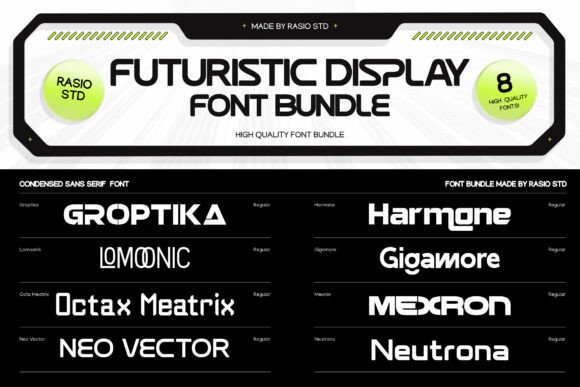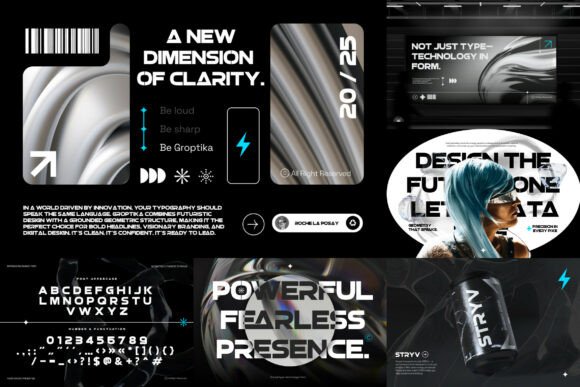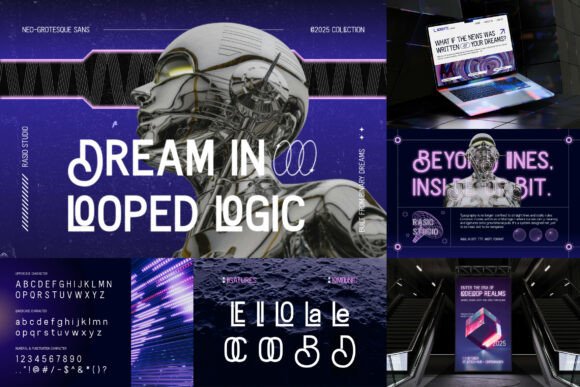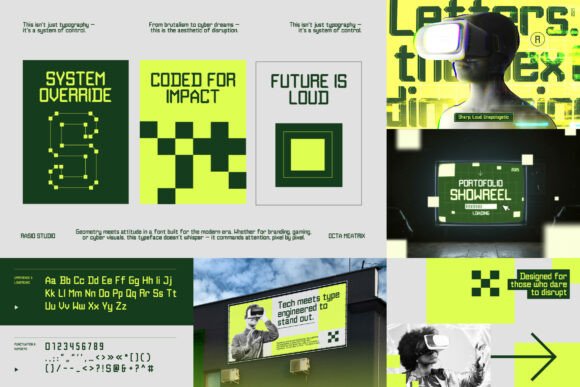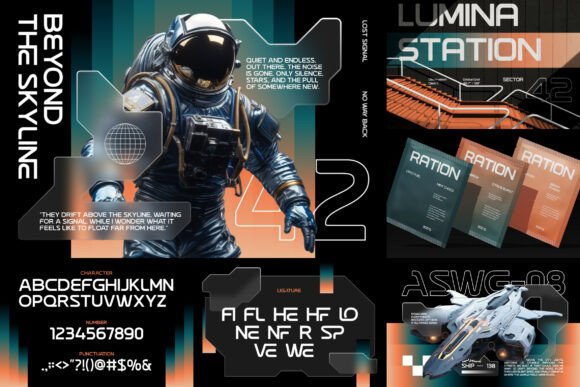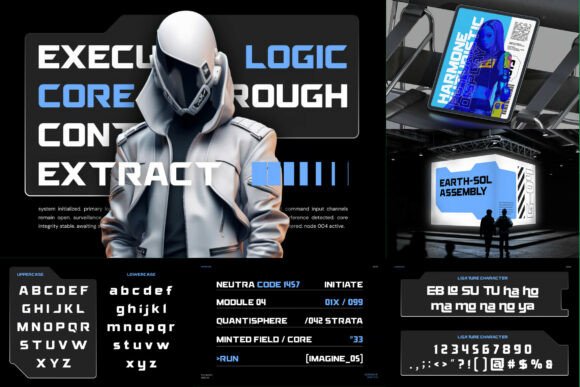
Futuristic Display Font Bundle: Elevate Your Designs with a Cutting-Edge Typographic Experience
In the realm of digital design, typography plays a pivotal role in capturing the essence of a brand, product, or artistic vision. For those seeking to infuse their projects with a sense of futurism, innovation, and high-tech sophistication, the Futuristic Display Font Bundle emerges as a game-changer. This comprehensive collection of bold, forward-looking typefaces is meticulously crafted to meet the demands of modern digital visuals, making it an indispensable tool for designers and crafters alike.
Inspiration from the Future
The Futuristic Display Font Bundle draws its inspiration from the realms of futuristic interfaces, cyberpunk aesthetics, and cutting-edge technology. Each font within the bundle is a testament to the fusion of strong geometric forms with a sharp, high-tech personality, ensuring that your designs stand out with a unique and captivating visual appeal.
Crafted for Display Use
Understanding the significance of typography in display use, the Futuristic Display Font Bundle comprises typefaces that are specifically designed to excel in headlines, sci-fi themes, tech branding, game UI, posters, and experimental layouts. Whether you’re aiming to create a lasting impression with a bold statement or seeking to transport your audience into a futuristic world, these fonts are engineered to deliver.
- Bold and Futuristic Aesthetic: The bundle offers a range of typefaces that embody a bold, futuristic look, perfect for making a statement in your designs.
- Geometric and High-Tech Personality: With strong geometric forms and a sharp, high-tech feel, these fonts bring a sense of innovation and dynamism to your projects.
- Versatility: From tech branding and game UI to posters and experimental layouts, the Futuristic Display Font Bundle is versatile enough to meet various design needs.
- Innovative and Dynamic: The clean structure and futuristic details of these fonts ensure that your designs feel innovative, dynamic, and ahead of their time.
Applications of the Futuristic Display Font Bundle
The applications of the Futuristic Display Font Bundle are vast and varied. Here are a few scenarios where these fonts can make a significant impact:
- Building a Futuristic Brand: Establish your brand’s identity with a typography that screams innovation and forward-thinking.
- Designing Tech Visuals: Enhance your tech-related projects with fonts that embody the cutting-edge technology and sophistication of the digital age.
- Creating Cyber-Inspired Artwork: Give your artistic projects a cyberpunk edge with typefaces that capture the essence of futuristic aesthetics.
The Futuristic Display Font Bundle is more than just a collection of typefaces; it’s a powerful tool designed to transform your digital designs into futuristic masterpieces. With its bold aesthetic, geometric precision, and high-tech personality, this bundle provides a solid foundation for anyone looking to make a statement in the world of digital design. Whether you’re a designer, a crafter, or simply someone with a passion for futuristic visuals, this font bundle is your gateway to creating innovative, dynamic, and captivating designs that are sure to leave a lasting impression.
Embrace the future of typography and elevate your designs with the Futuristic Display Font Bundle. Unlock the potential of your creativity and bring your most ambitious projects to life with a typographic experience that’s as futuristic as it is compelling.